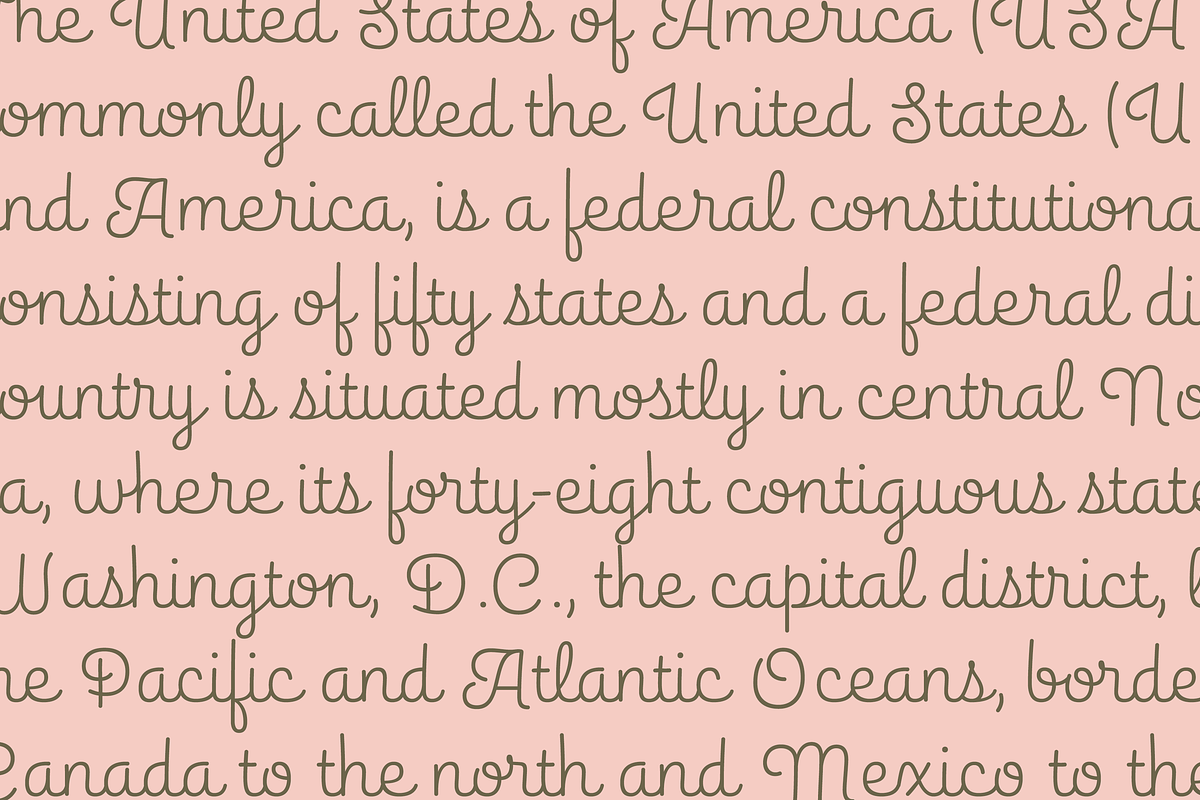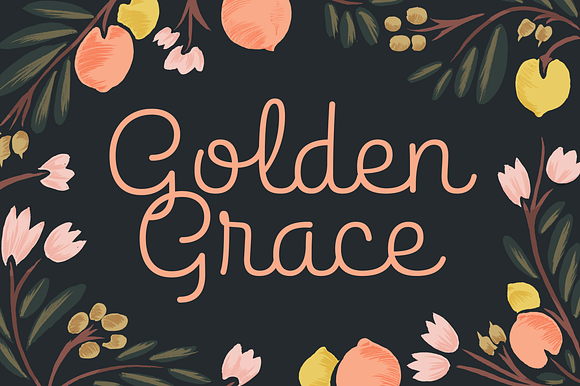
Golden Grace
Golden Grace is an upright connected script perfect for wedding invitations, scrapbooking, and packaging. The rounded corners make it friendly and inviting, and the capitals are fun and expressive.
Golden Grace by Golden Doodle Fonts fits naturally into Branding, posters, packaging, typography.